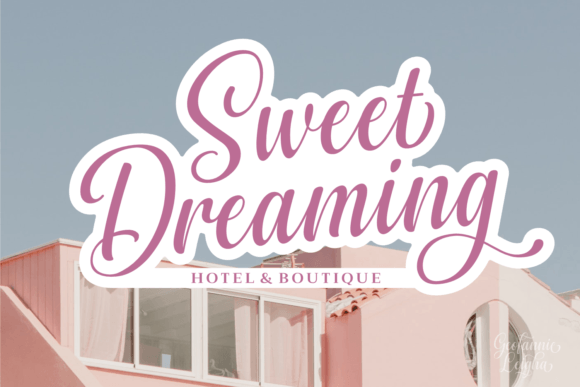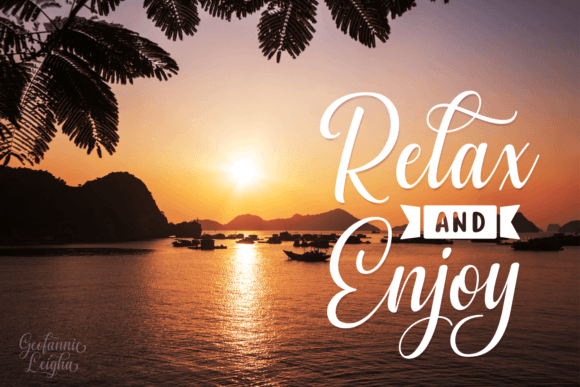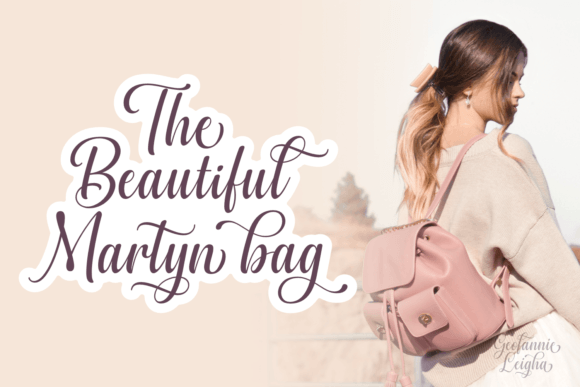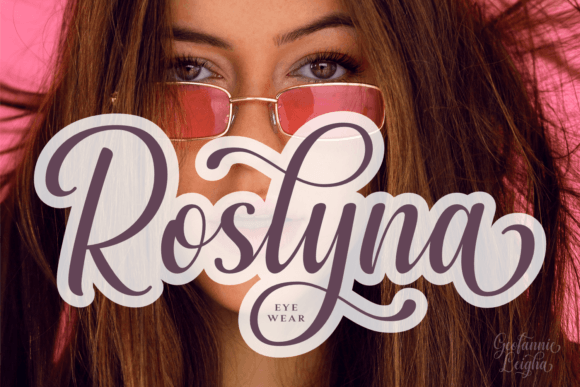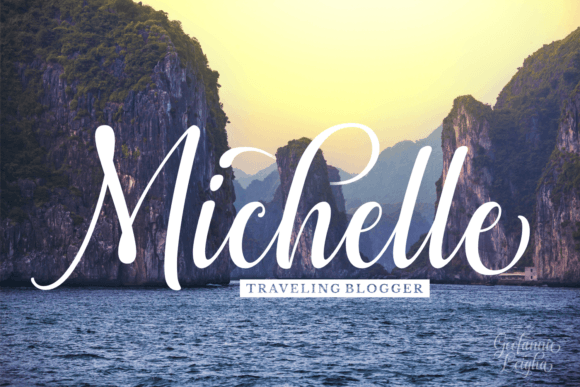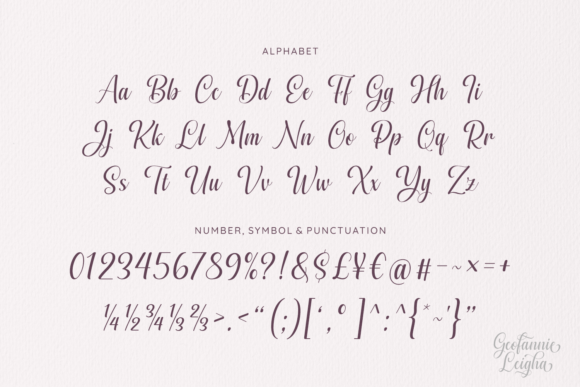
Introducing Geofanny Leigha Font: Elevate Your Designs with Chic and Fashionable Script
Are you a designer or crafter looking for a font that can add a touch of elegance and sophistication to your projects? Look no further than Geofanny Leigha Font! This stunning script font is perfect for creating stylish and trendy visuals, as well as classic and clean designs. With its PUA encoding, you can easily access all the glyphs and swashes, making it a fantastic addition to your font collection.
What Makes Geofanny Leigha Font So Special?
Geofanny Leigha Font is a beautifully crafted script font that exudes chic and fashionability. Its elegant strokes and flowing curves make it perfect for a wide range of design projects, from branding and advertising to packaging and stationery. Whether you’re creating a modern and trendy visual or a classic and clean design, this font is sure to impress.
One of the standout features of Geofanny Leigha Font is its PUA (Private Use Area) encoding. This means that you can easily access all the glyphs and swashes, allowing you to add a touch of personality and flair to your designs. With PUA encoding, you can effortlessly create beautiful and unique text arrangements that will set your designs apart from the rest.
Geofanny Leigha Font is a versatile font that is perfect for designers and crafters alike. Whether you’re working on a commercial project or a personal craft, this font is sure to be a valuable addition to your toolkit. Here are just a few ways you can use Geofanny Leigha Font:
- Branding and Advertising: Use Geofanny Leigha Font to create stunning logos, business cards, and brochures that will help your brand stand out.
- Packaging Design: Add a touch of elegance and sophistication to your product packaging with Geofanny Leigha Font.
- Stationery and Invitations: Create beautiful and unique stationery, invitations, and greeting cards with Geofanny Leigha Font.
- Crafting and Scrapbooking: Use Geofanny Leigha Font to add a personal touch to your scrapbooking and crafting projects.
Key Features of Geofanny Leigha Font
Here are some of the key features that make Geofanny Leigha Font so special:
- Chic and Fashionable Script: Geofanny Leigha Font features a beautiful and elegant script that is perfect for a wide range of design projects.
- Versatile: Use Geofanny Leigha Font for both commercial and personal projects, including branding, advertising, packaging, stationery, and more.
- Elegant Strokes and Flowing Curves: Geofanny Leigha Font features elegant strokes and flowing curves that add a touch of sophistication to any design.
Tips for Using Geofanny Leigha Font
Here are a few tips for getting the most out of Geofanny Leigha Font:
- Experiment with Different Sizes and Colors: Geofanny Leigha Font looks great in a variety of sizes and colors, so don’t be afraid to experiment and find the perfect combination for your design.
- Pair with Other Fonts: Geofanny Leigha Font pairs well with a range of other fonts, so try combining it with different fonts to create a unique and interesting look.
In conclusion, Geofanny Leigha Font is a chic and fashionable script font that is perfect for designers and crafters looking to add a touch of elegance and sophistication to their projects. With its PUA encoding and versatile design, this font is sure to be a valuable addition to your font collection.